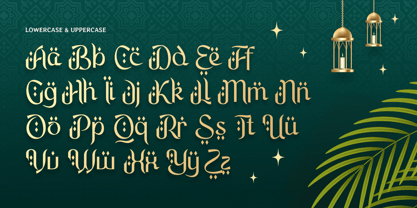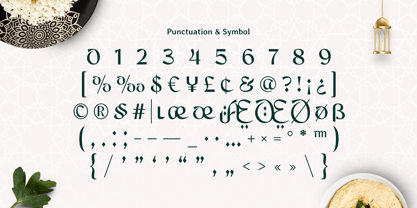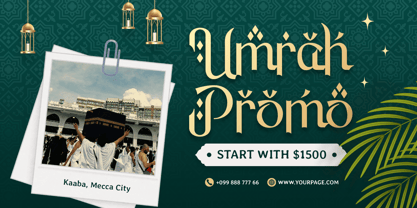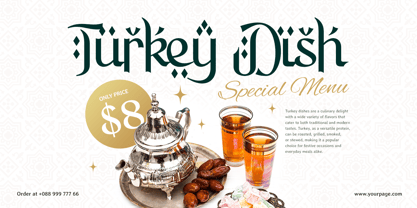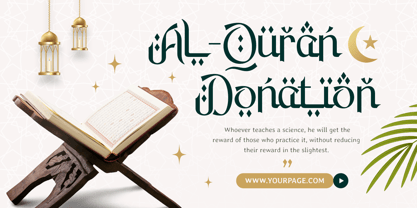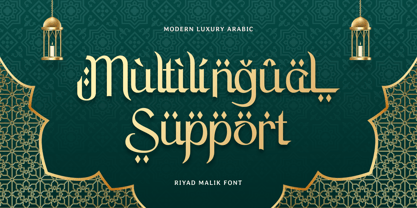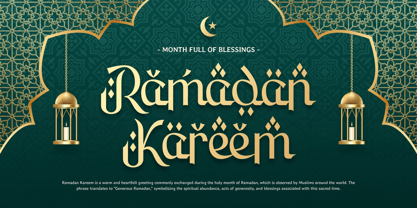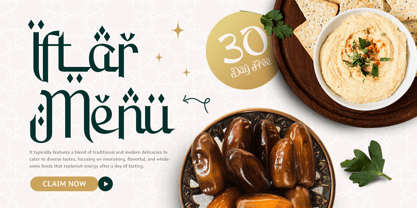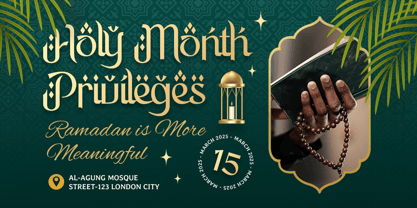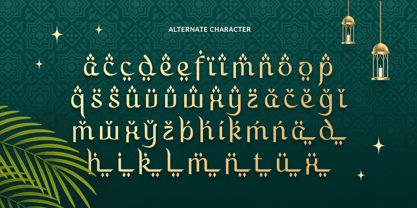
Riyad Malik
Riyad Malik - Modern Luxury Arabic Font
"Riyad Malik combines the richness of Arabic calligraphy with modern luxury for timeless, elegant designs."
Riyad Malik is a modern luxury Arabic font that beautifully blends traditional Arabic calligraphy with contemporary design aesthetics. This font is perfect for creating high-end branding, cultural event designs, and Ramadan or Eid greetings. Its elegant curves and balanced forms evoke sophistication, making it an ideal choice for projects that demand both cultural authenticity and modern appeal.
Inspired by the luxurious essence of Arabic artistry, Riyad Malik offers a harmonious combination of tradition and modernity. Whether you're designing for upscale product packaging, fashion branding, or cultural campaigns, this font seamlessly adapts to both print and digital platforms, delivering a premium and authentic visual experience.
Elevate your designs with Riyad Malik, a font crafted for those who seek to blend cultural elegance with modern luxury. Its versatility ensures it becomes a valuable asset for both professional and artistic projects.
Riyad Malik Modern Luxury Arabic Font Features:
• Refined and Elegant Arabic Script
• Punctuation, Numbers, and Symbols
• Uppercase and Lowercase
• Opentype Features
Multilingual Characters available for:
Afrikaans, Albanian, Asu, Basque, Bemba, Bena, Breton, Chiga, Cornish, Dutch, English, Estonian, Filipino, Finnish, Friulian, Galician, German, Gusii, Indonesian, Irish, Italian, Kabuverdianu, Kalenjin, Kinyarwanda, Luo, Luxembourgish, Luyia, Machame, Makhuwa-Meetto, Makonde, Malagasy, Manx, Morisyen, North Ndebele, Nyankole, Oromo, Portuguese, Quechua, Romansh, Rombo, Rundi, Rwa, Samburu, Sango, Sangu, Scottish Gaelic, Sena, Shambala, Shona, Soga, Somali, Spanish, Swahili, Swedish, Swiss.